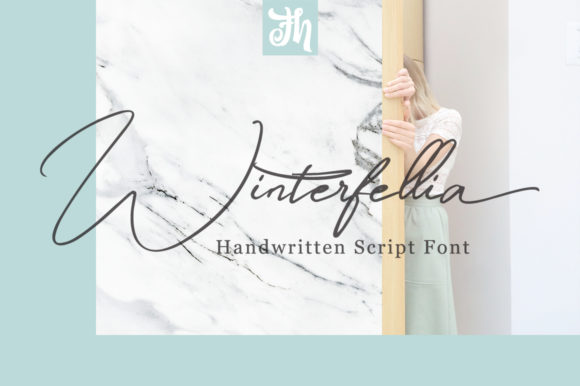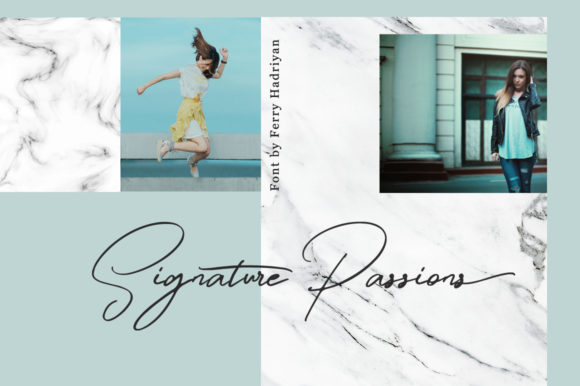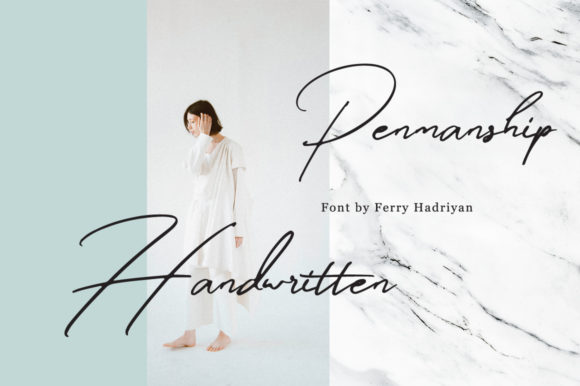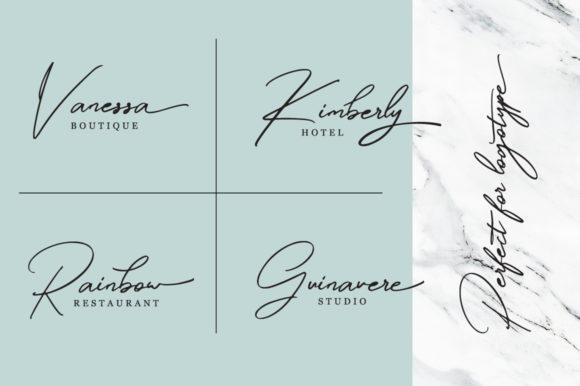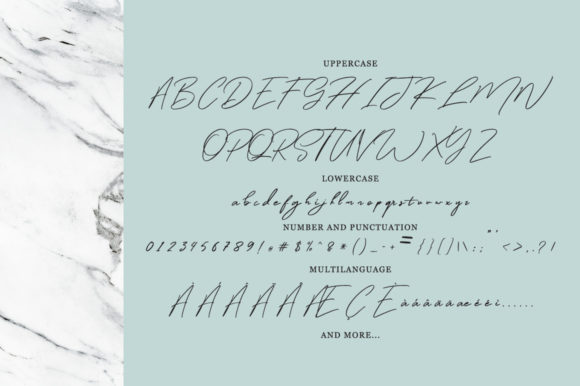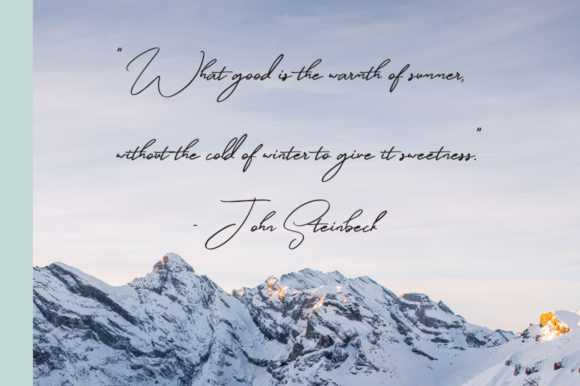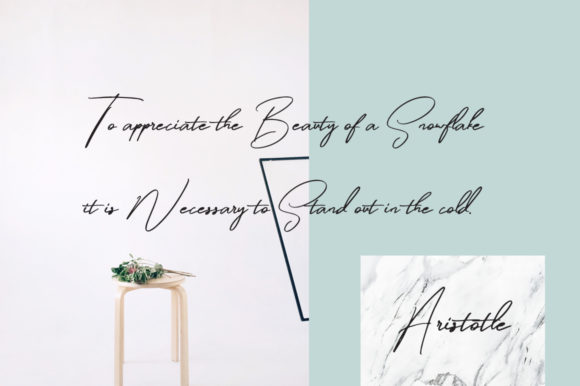
Winterfellia Font
About Winterfellia Font
Winterfellia is a delicated handwritten script with personalized charm. Great for a variety of creative projects!